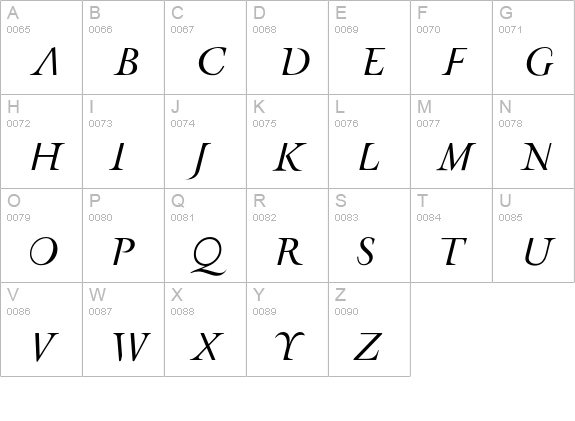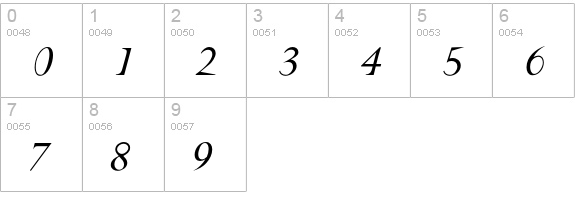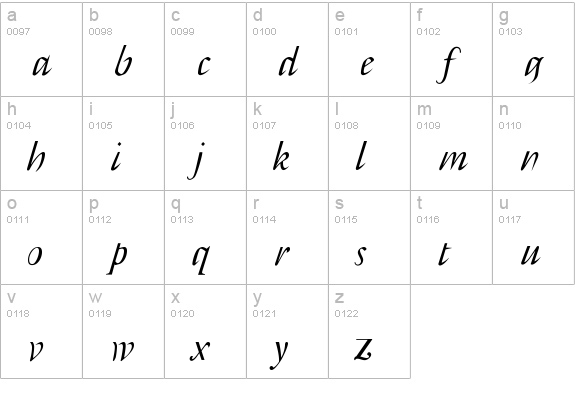
RetrospectaItalic Font Details
RetrospectaItalic is an exquisite and elegant font that effortlessly combines tradition with a modern twist. This captivating typeface exudes a classic charm while also showcasing a contemporary flair, making it a versatile choice for a wide range of design projects. With its stylish and graceful letterforms, RetrospectaItalic adds a touch of sophistication to any text it graces. The italicized slant adds a sense of dynamism and movement, making this font particularly well-suited for titles, headlines, and impactful statements. Its delicate curves and precise detailing contribute to its overall allure, ensuring a memorable impression on any viewer. What sets RetrospectaItalic apart is not just its visual appeal, but also its accessibility. This font is freely available to download at FontsMarket.com, making it an ideal choice for designers, creatives, and enthusiasts who are searching for a high-quality typeface that won’t break the bank. The ability to access this font at no cost ensures that both professionals and amateurs alike can benefit from its beauty and versatility. Whether you are creating branding materials, editorial layouts, invitations, or any other design project that requires a touch of elegance, RetrospectaItalic is sure to elevate your work to new heights. Its seamless integration into various design styles and its ability to convey a sense of timeless sophistication make it a must-have addition to any designer's toolkit. In conclusion, RetrospectaItalic is a captivating and freely available font that effortlessly combines tradition and modernity. Its stunning visual appeal, coupled with its accessibility, ensures that anyone can enjoy its beauty and versatility. Download this font from FontsMarket.com and unlock a world of design possibilities.